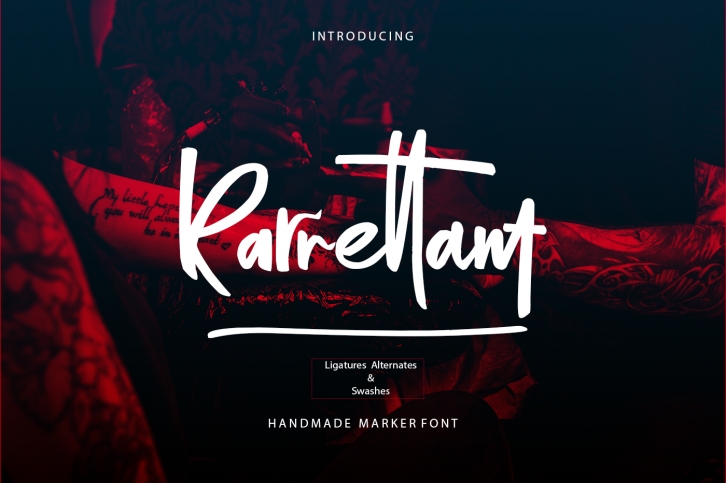
Rarrettant is a trendy and unique font with an authentic style. It was designed by DesignDukkan and it's a great choice for creative people who need such a font. It was released on November 20, 2017 and the file size is 11.75 MB. Rarrettant will add an organic vibe to any design idea!